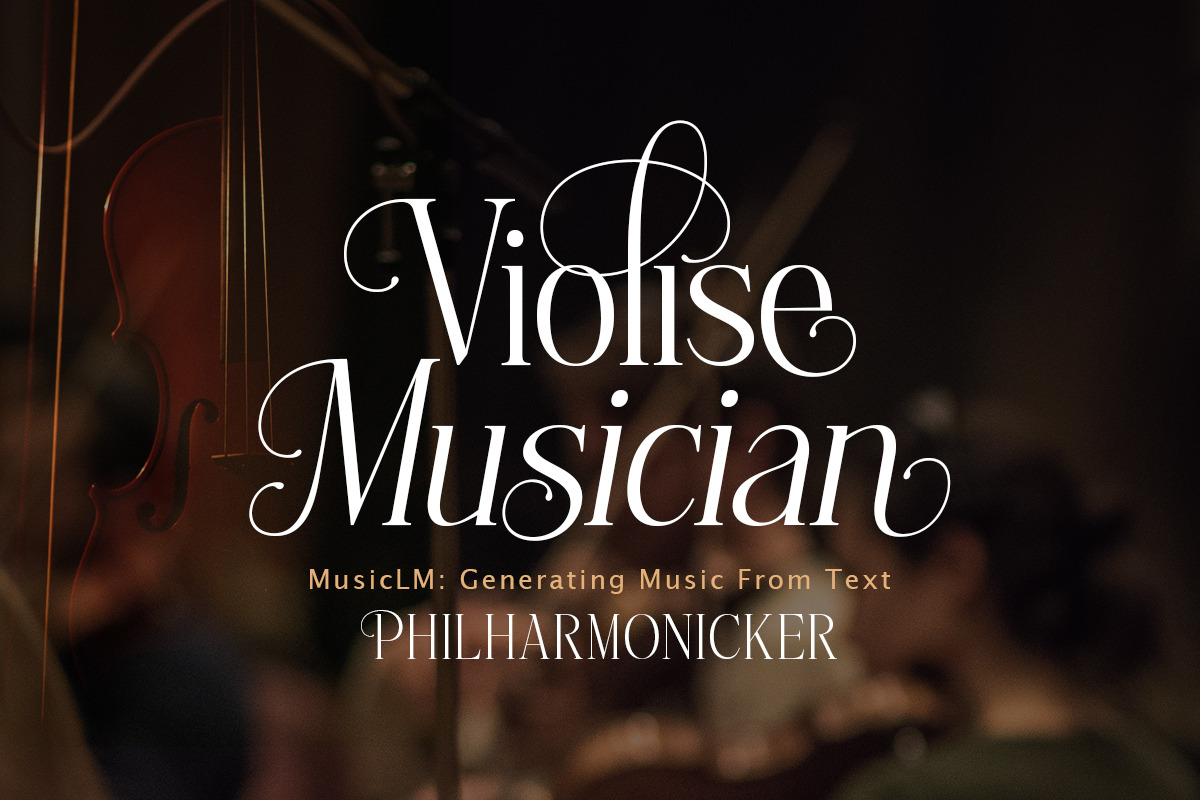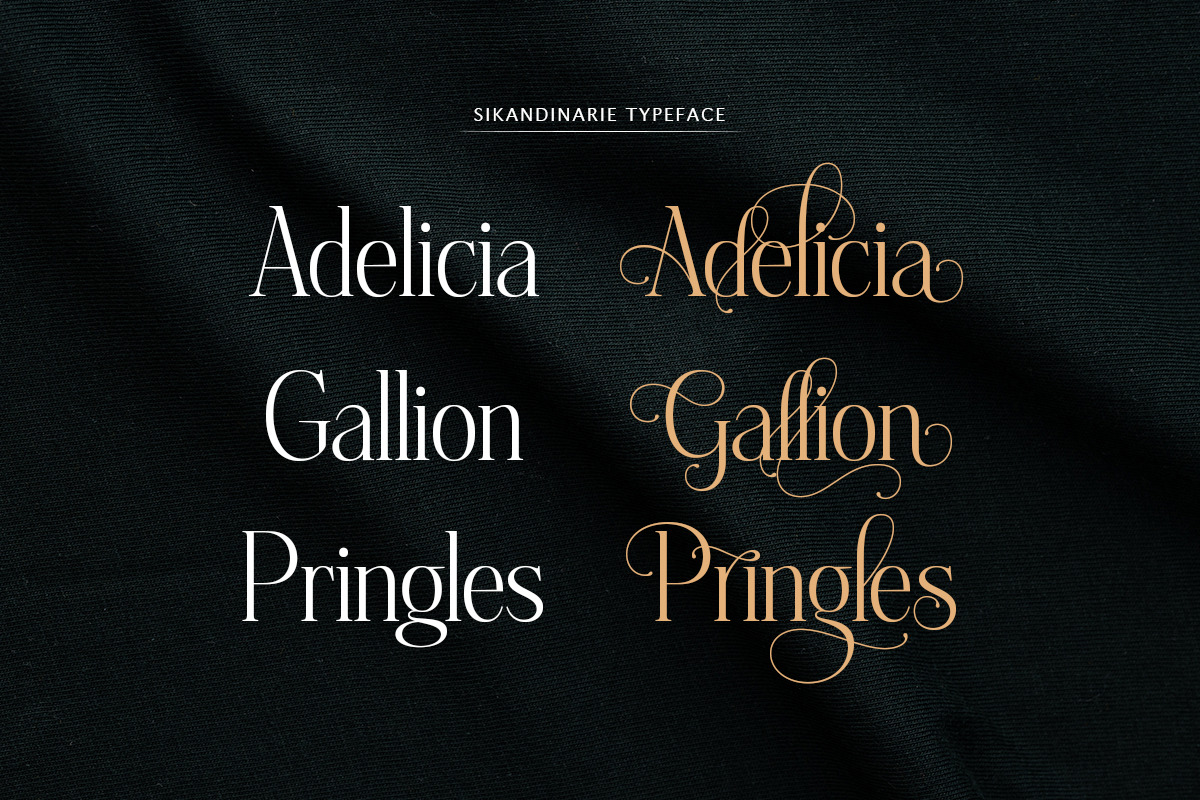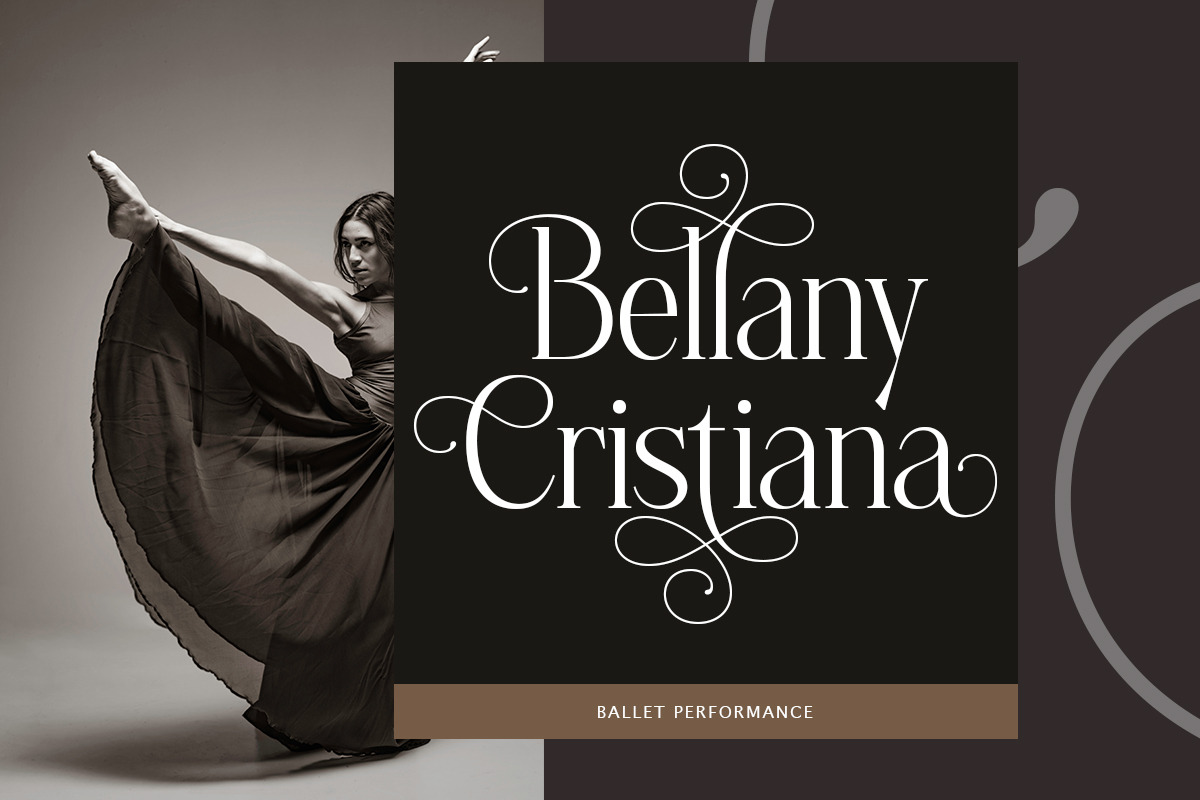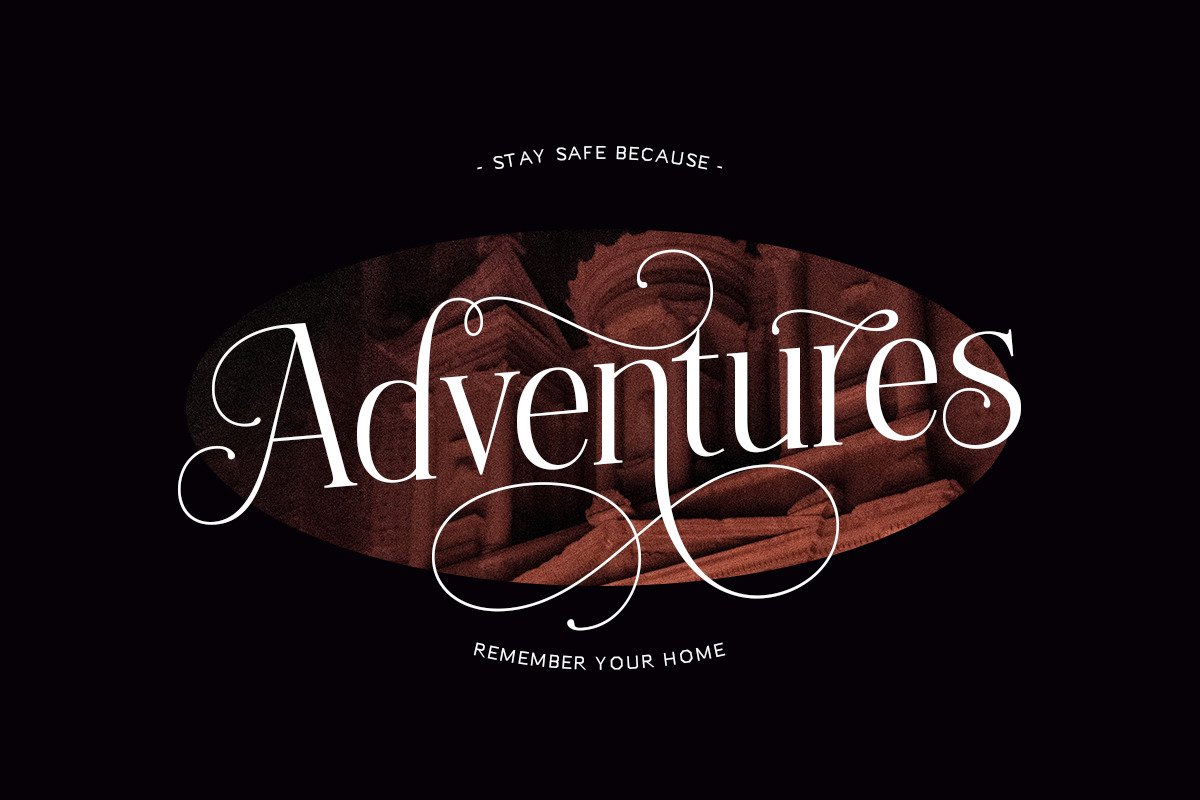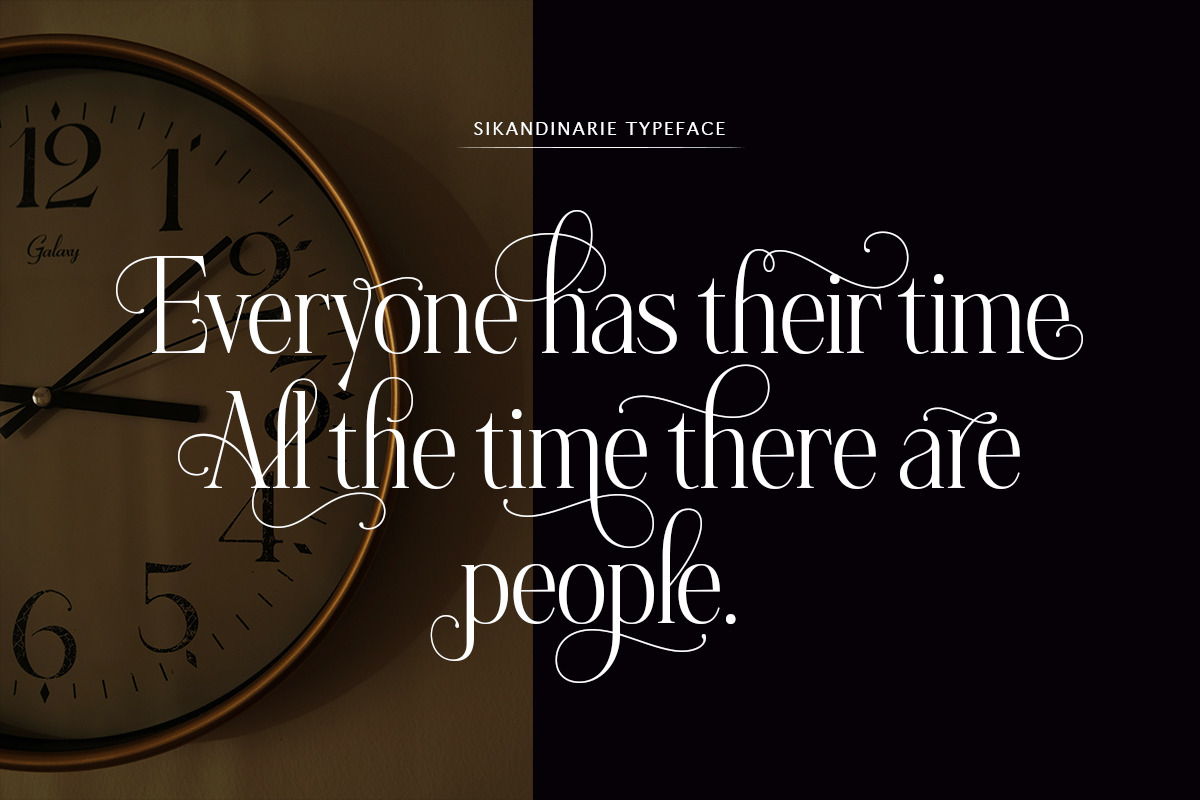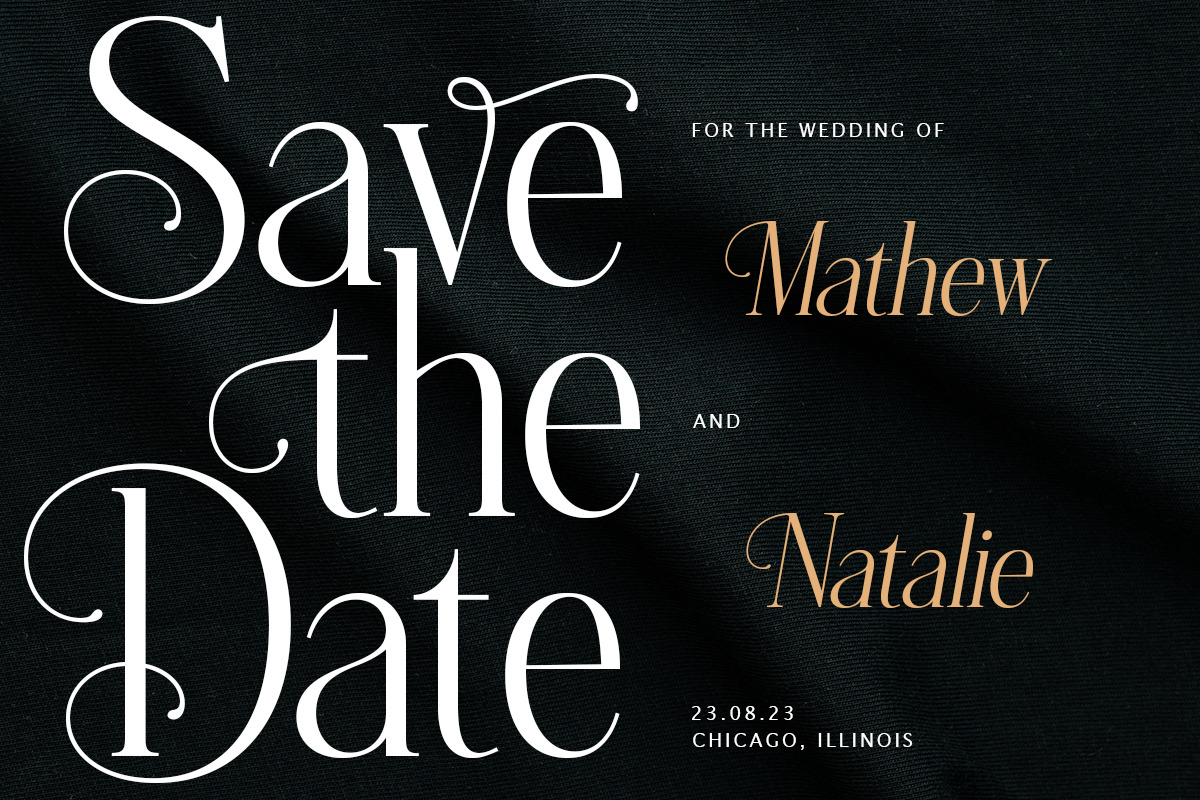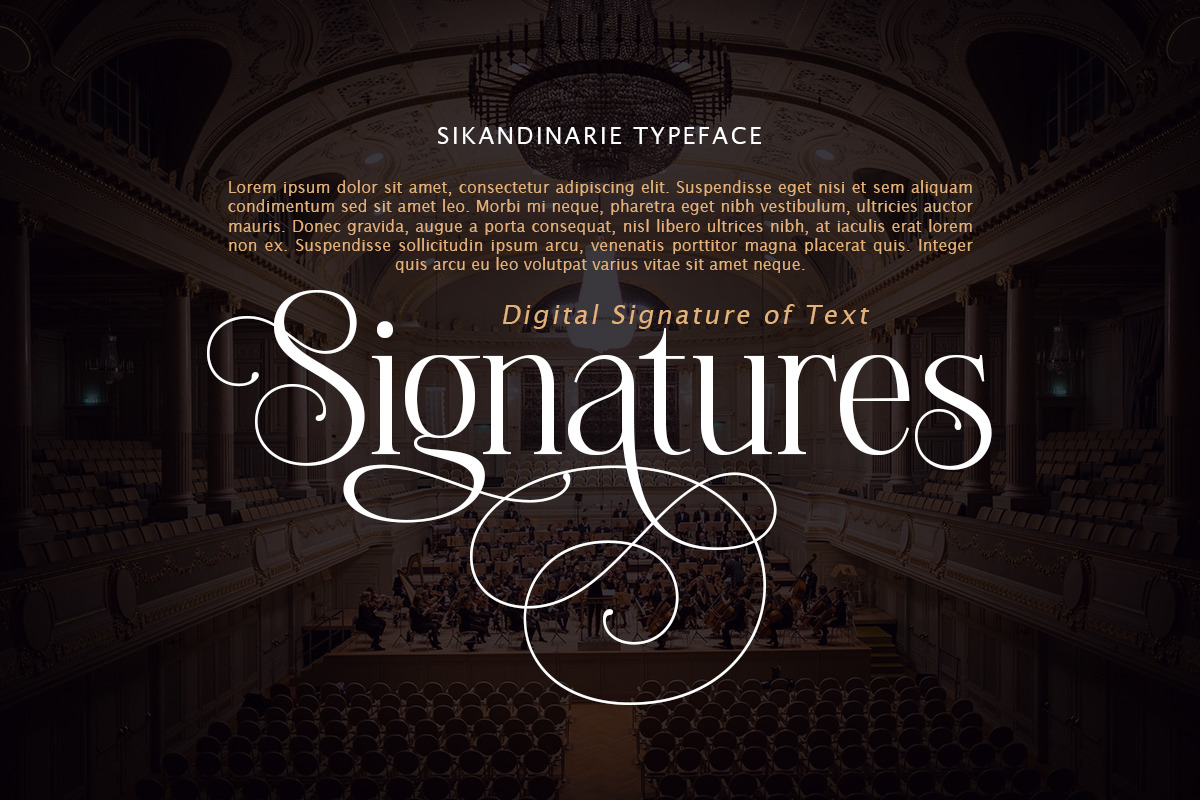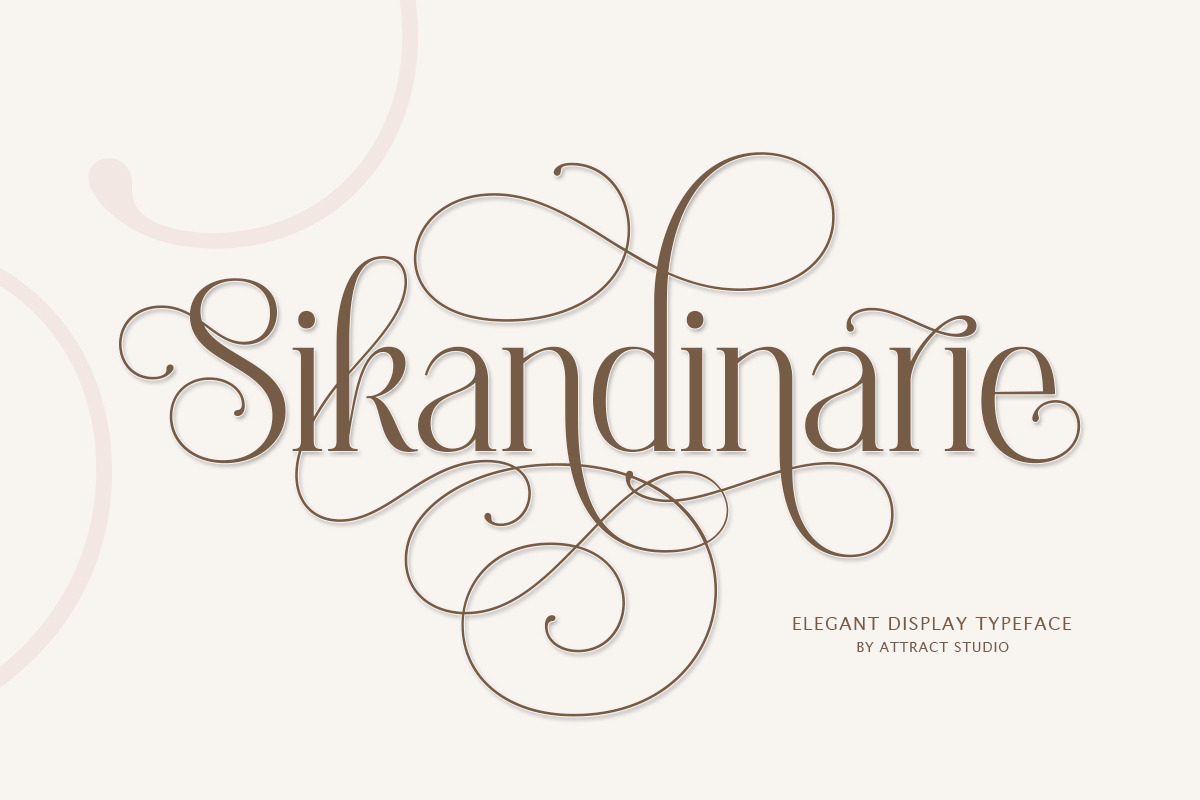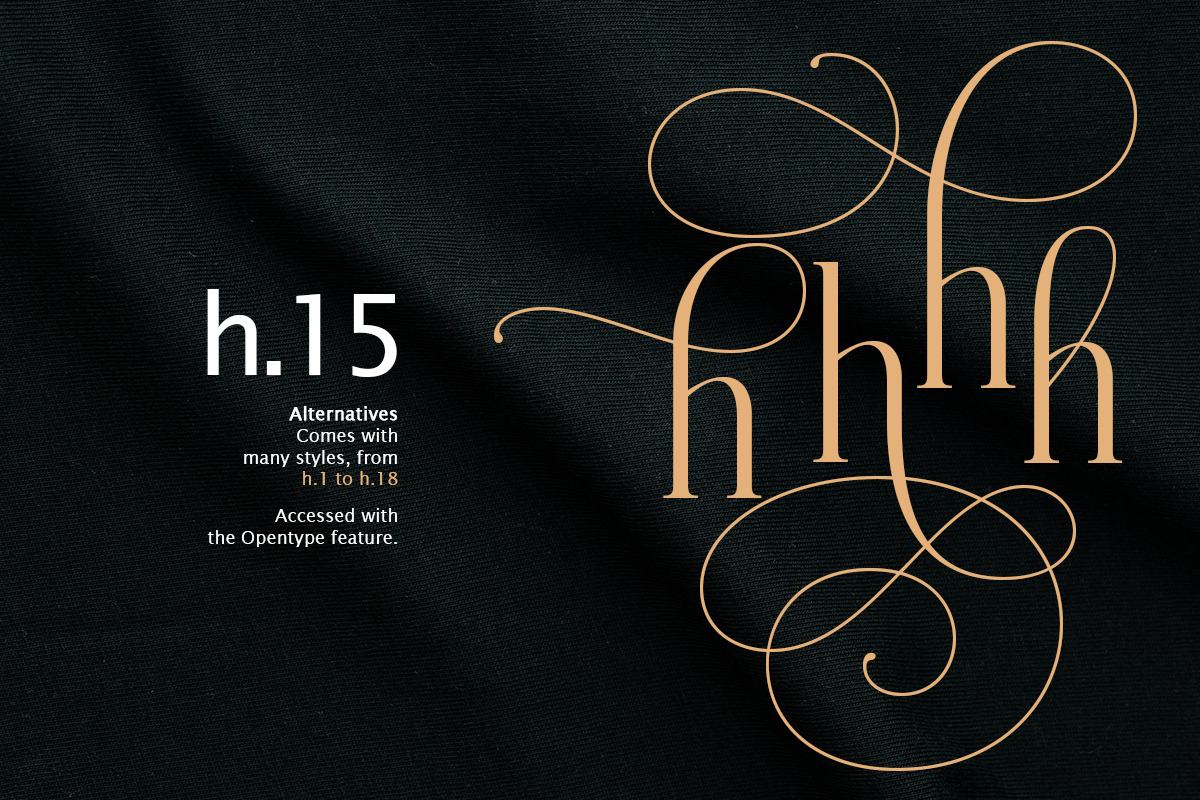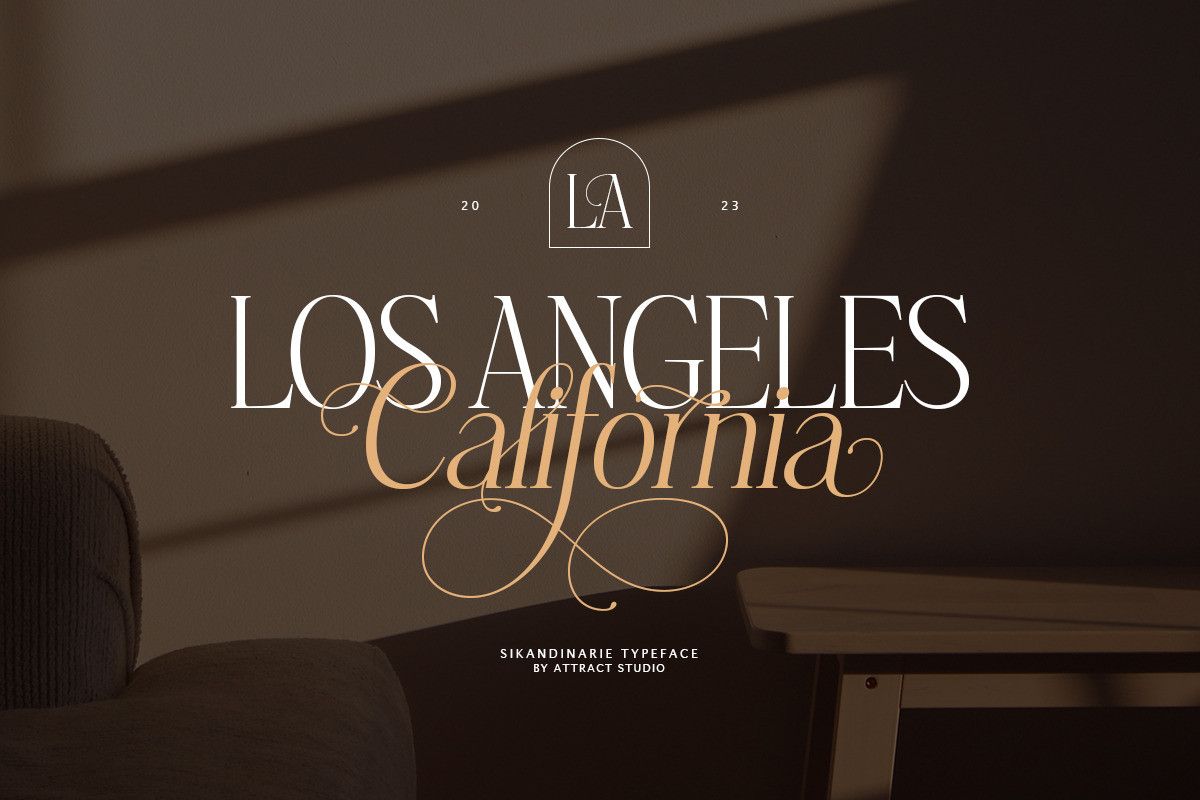
Sikandinarie
Sikandinarie is a clean and neat serif font combined with swirl strokes to make this font unique yet elegant. This typeface has many unique alternatives that can make your designs even more interesting, making it the perfect choice for any project.
- 2 Weights
- OpenType feature